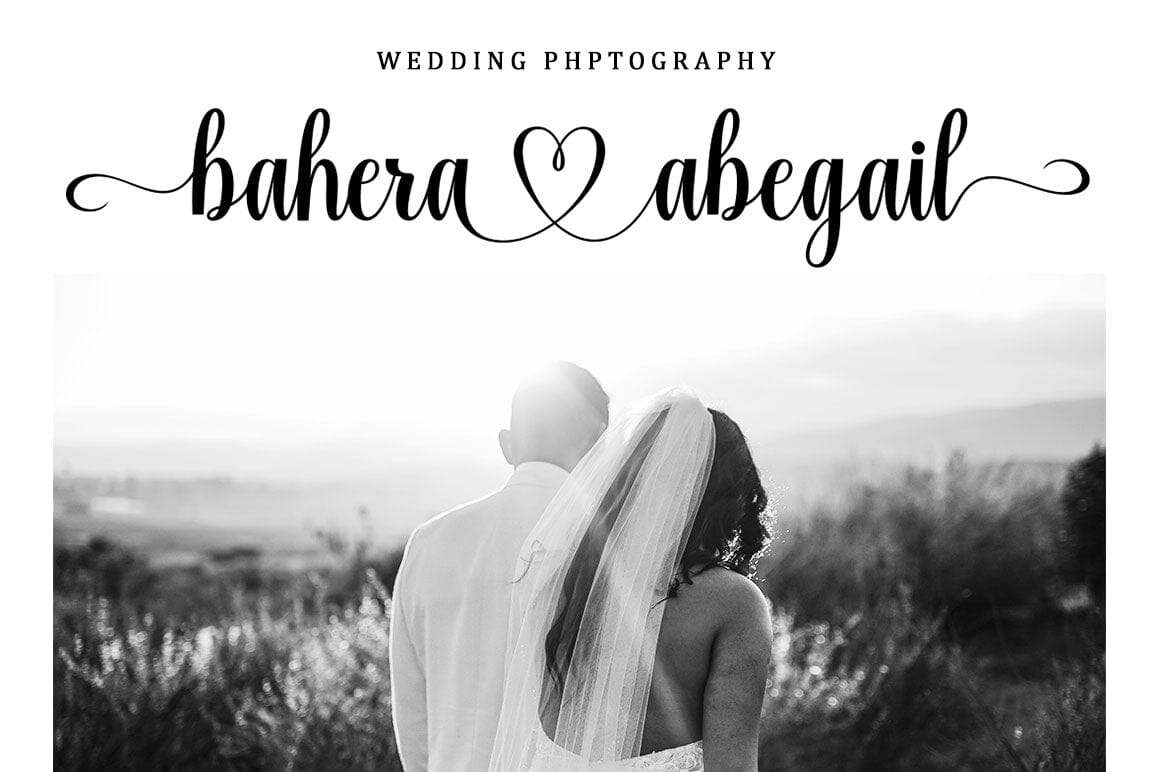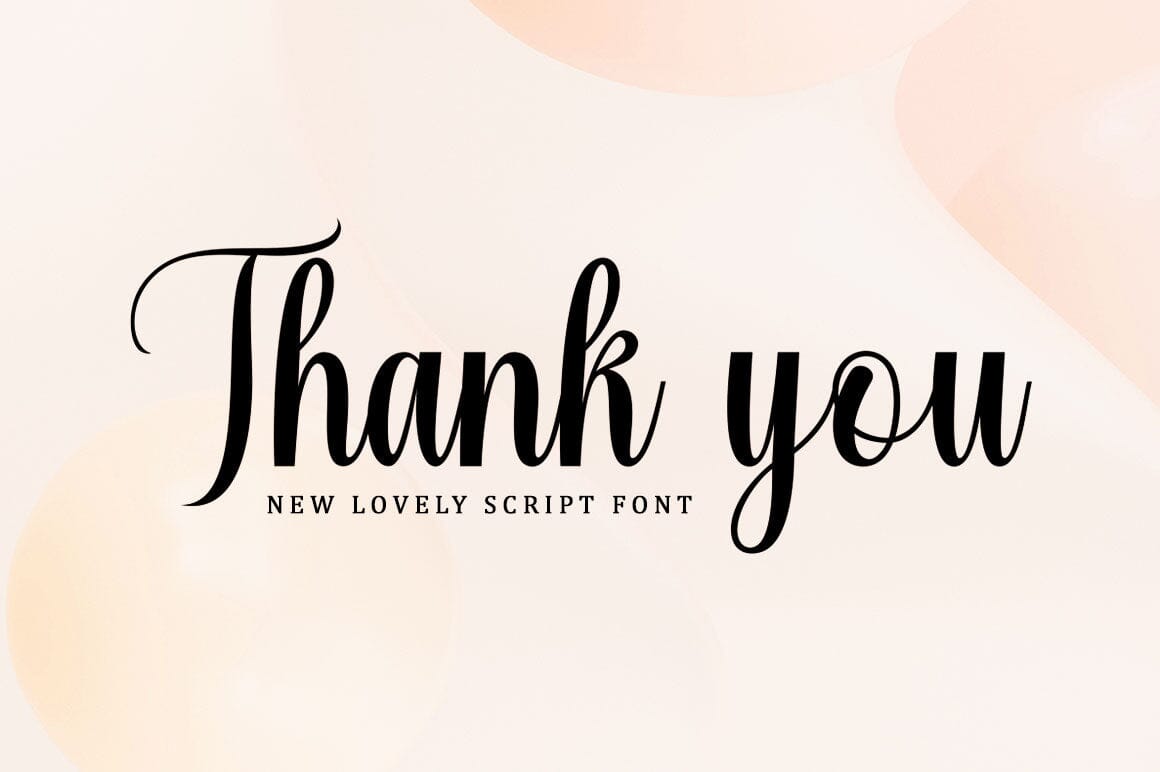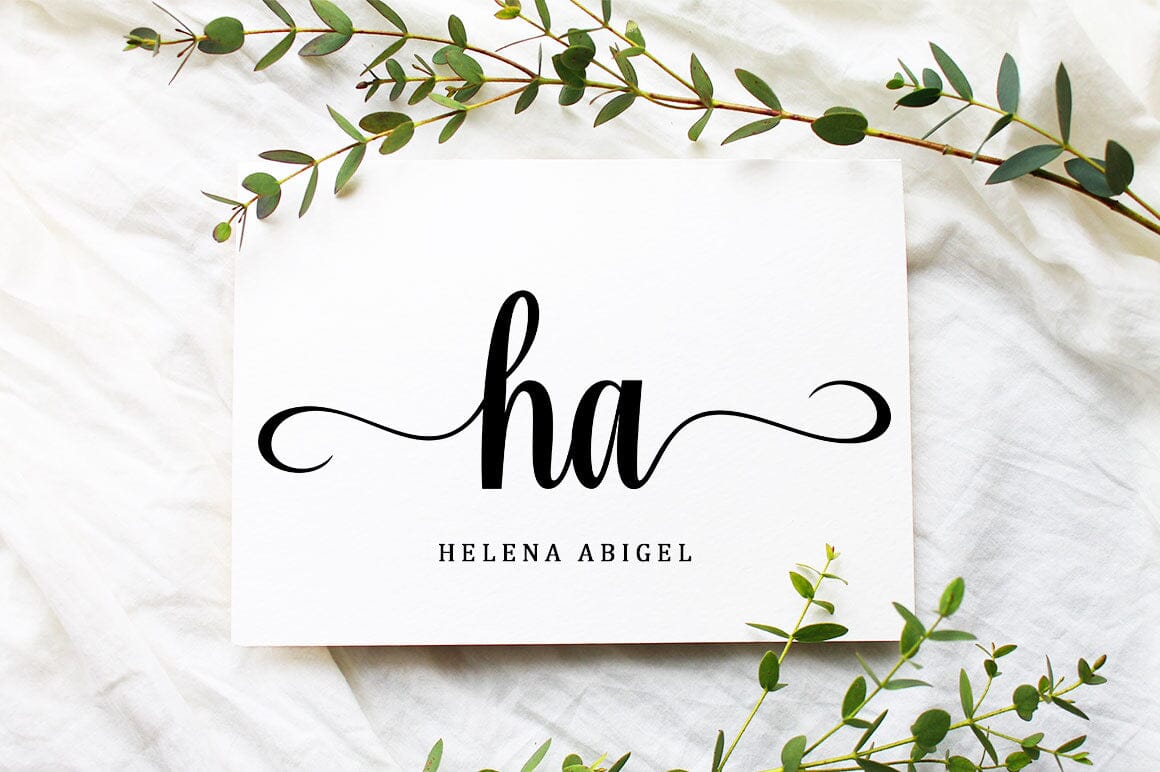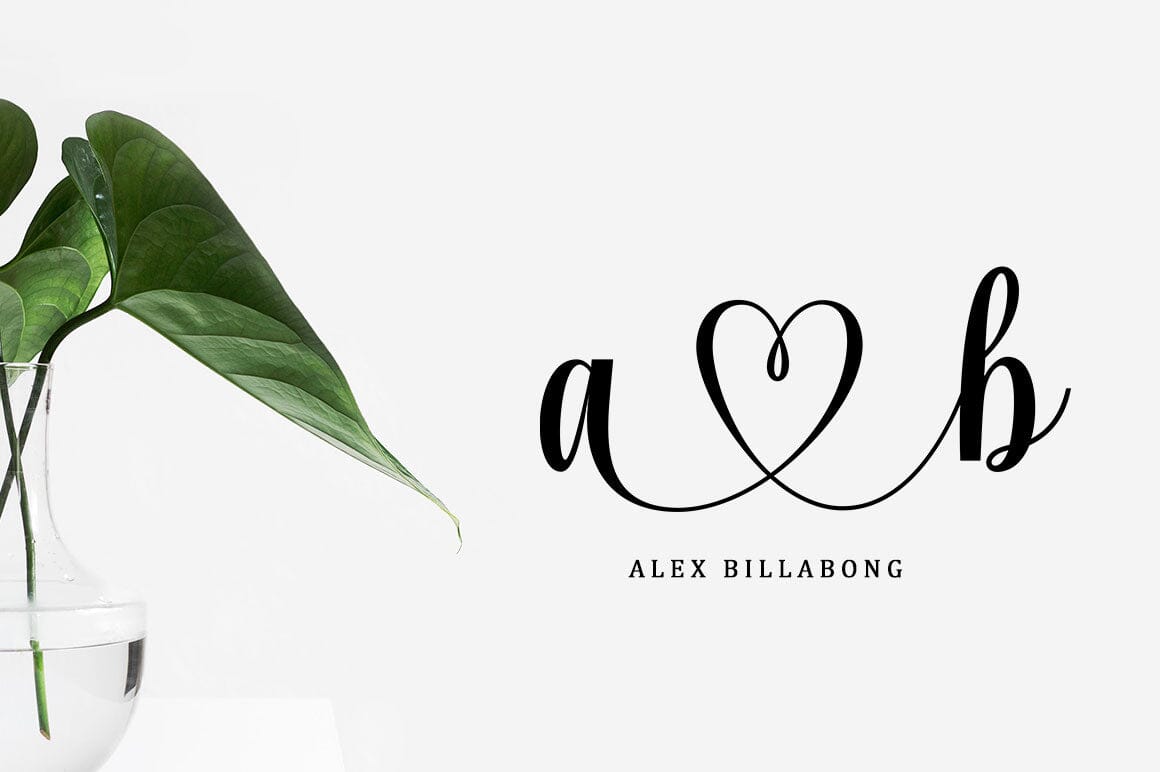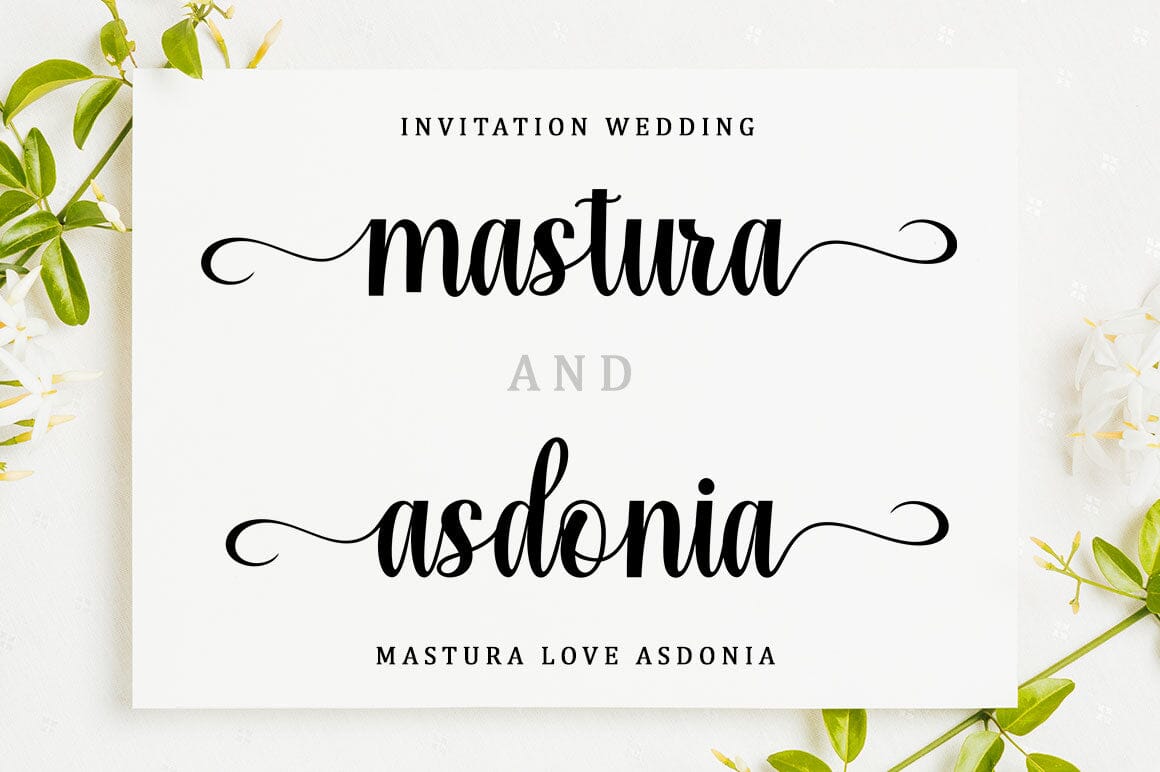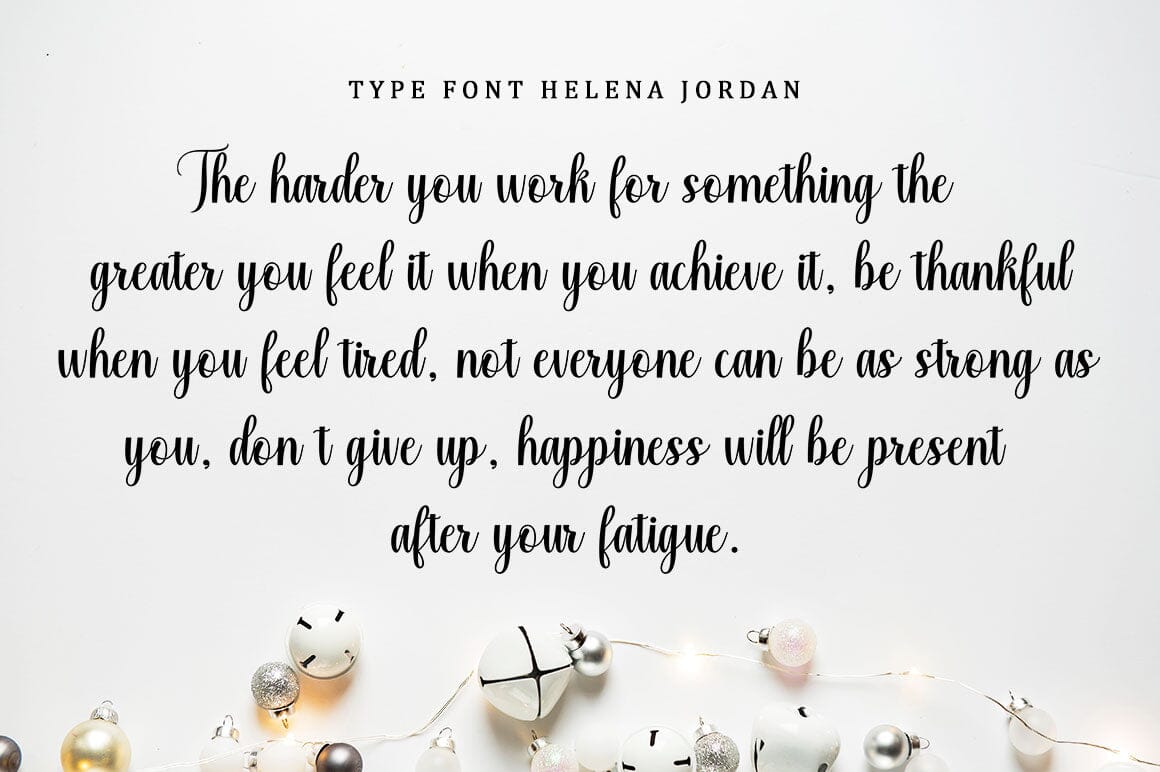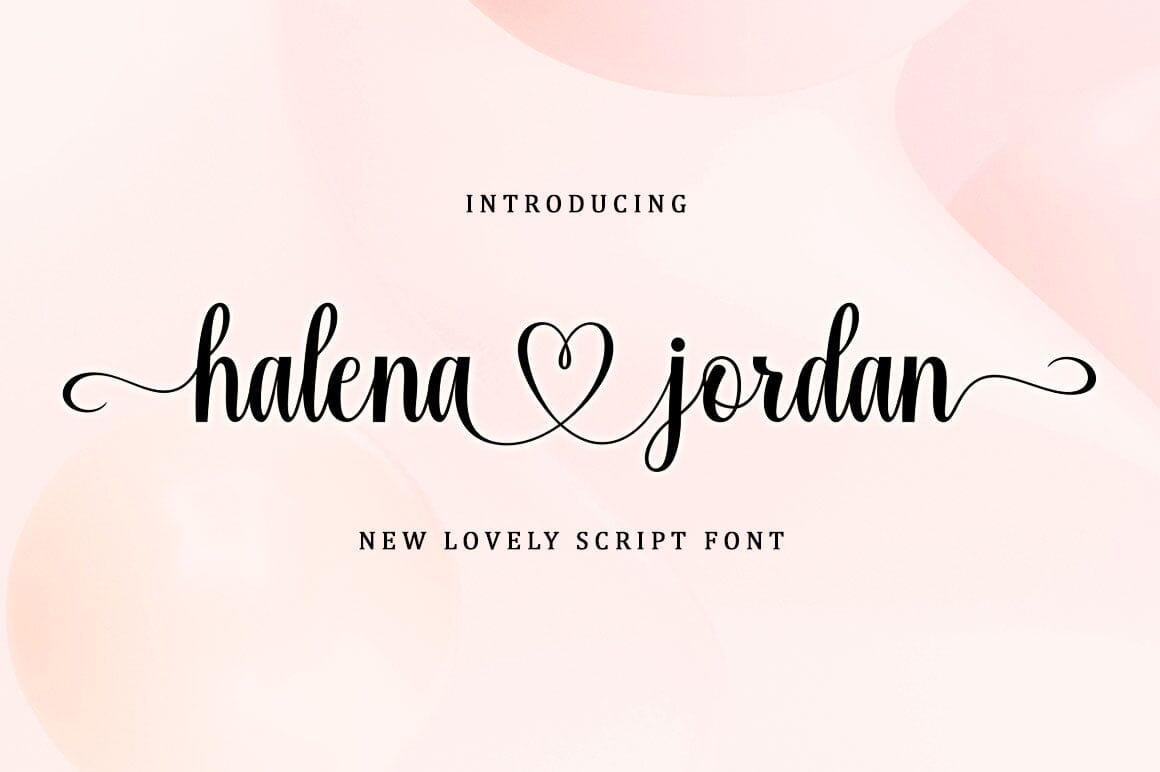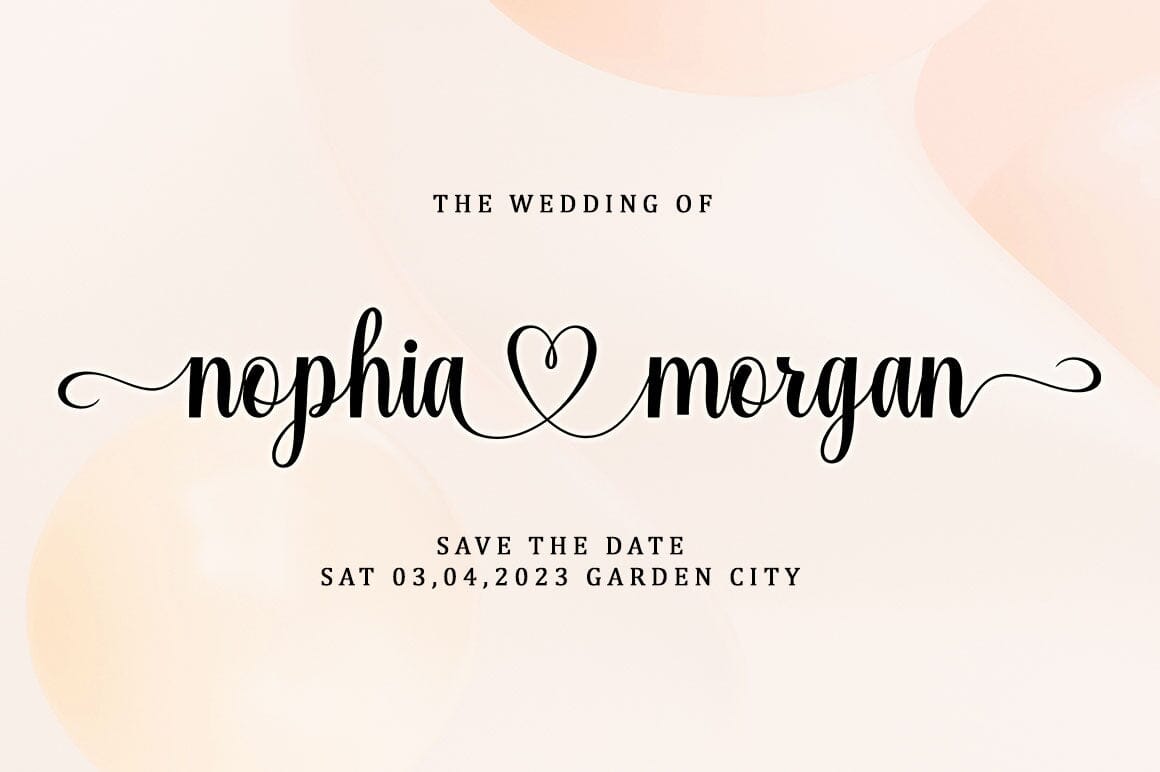
Halena Jordan Font
About Halena Jordan Font
Halena Jordan is a beautiful script that’s perfect for branding, wedding invitations, and other romantic projects. This love-centered look makes it perfect for use in all your design projects be it logos, labels, packaging designs, blog titles, posters, wedding designs, social media posts, Instagram designs, etc. Ð’ You will get : OTF/TTF Ð’ Contains full set: Ð’ -Uppercase Ð’ -Lowercase Ð’ -Alternative Ð’ – Ligature Ð’ – Punctuation Ð’ -Number Ð’ – Multilingual support. Ð’ I hope you enjoy this font. If you have any questions, feel free to message me.